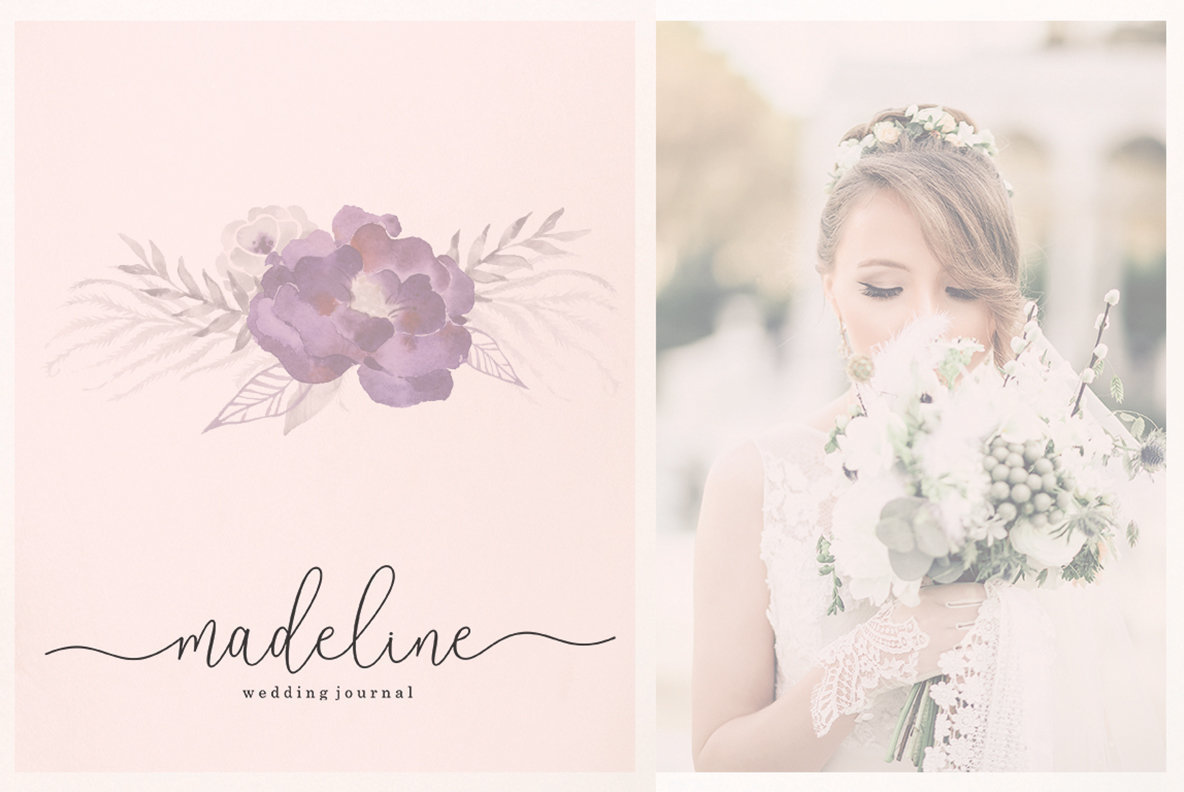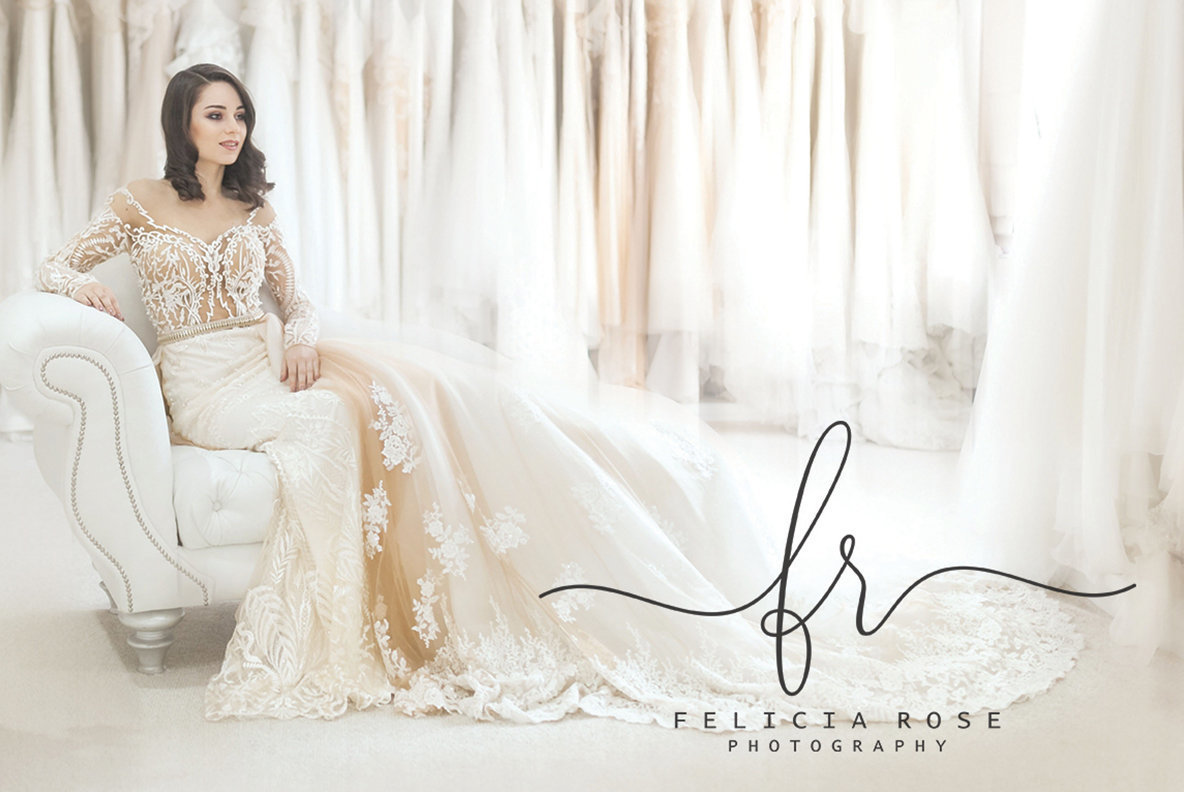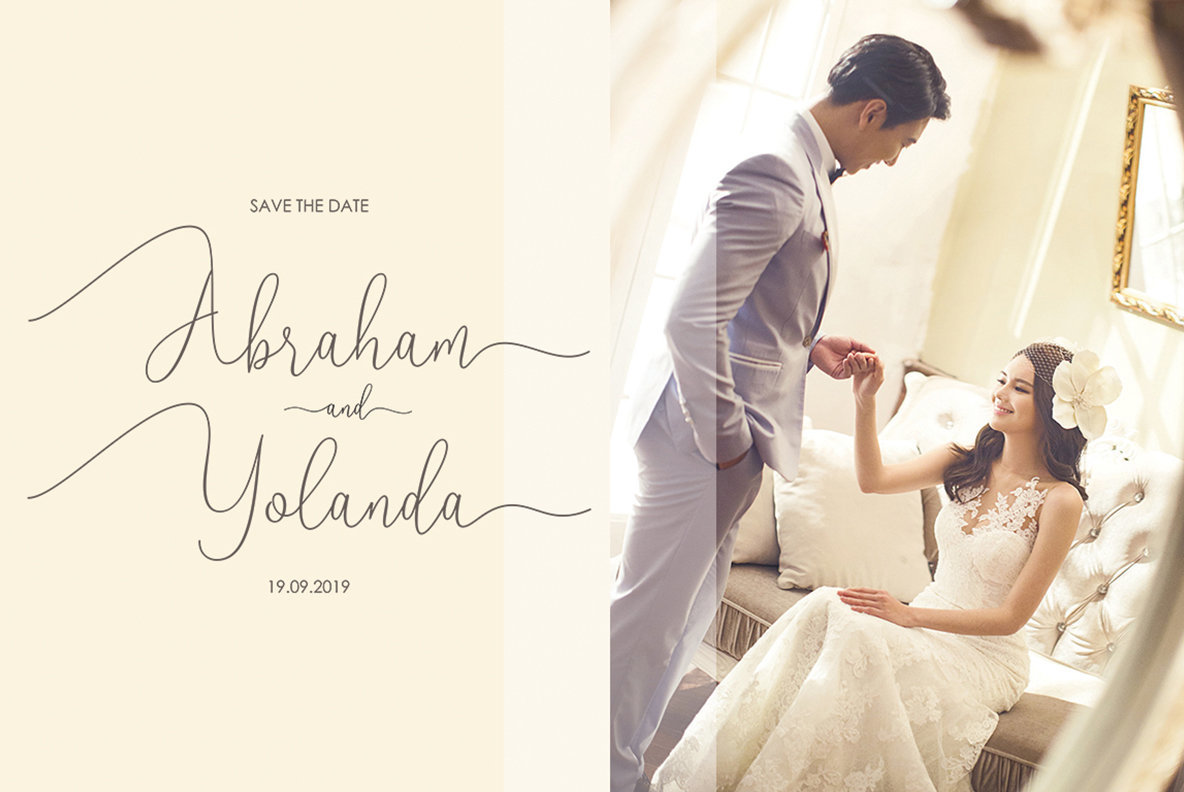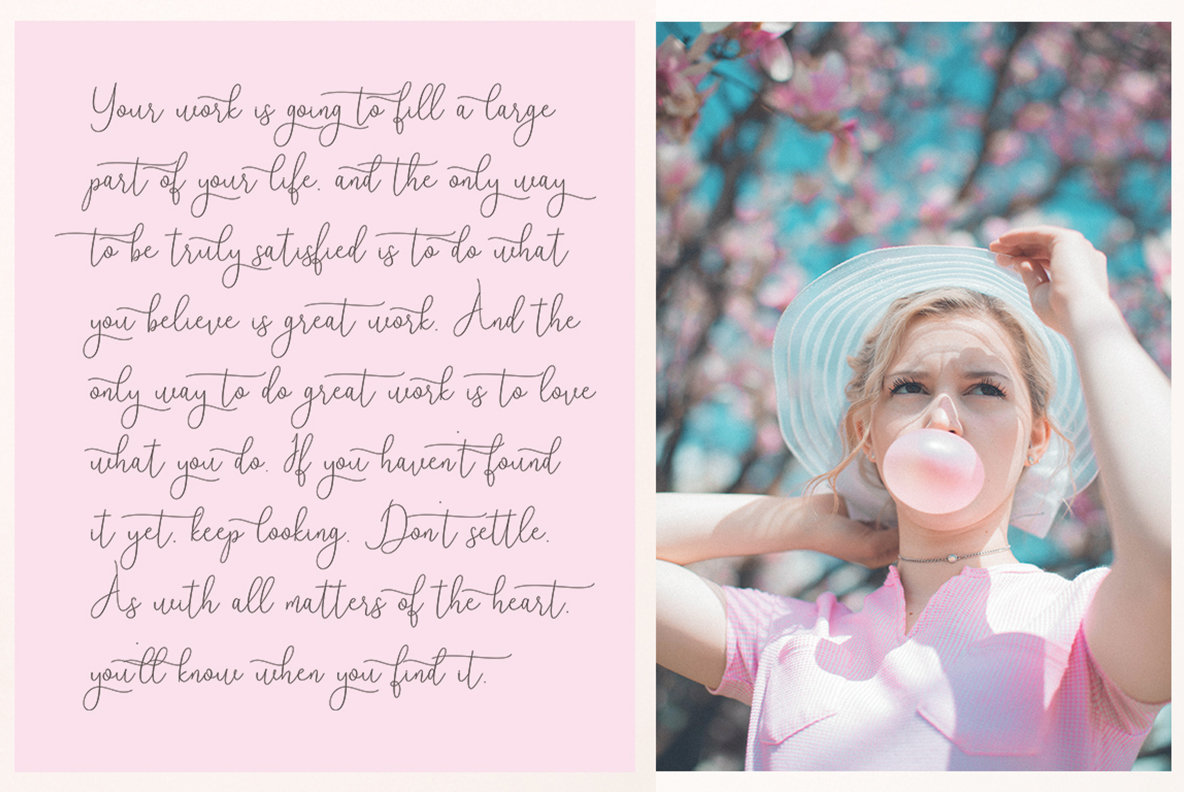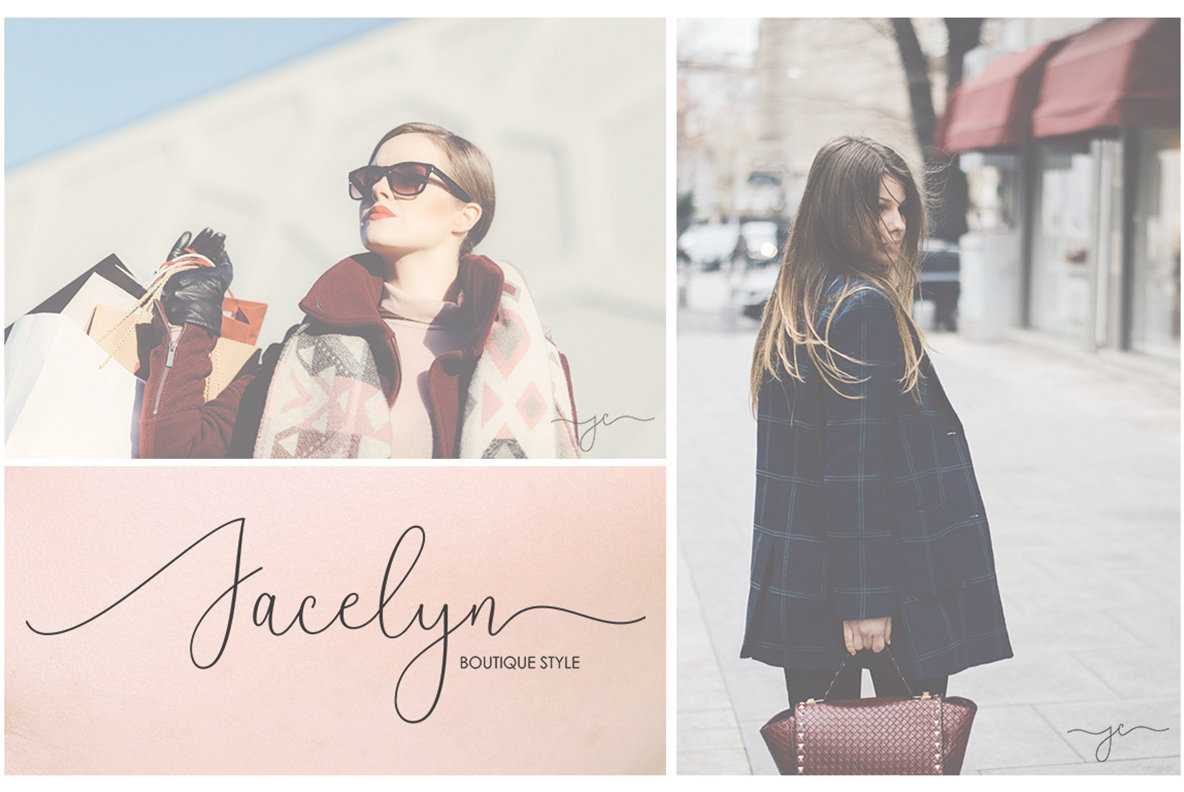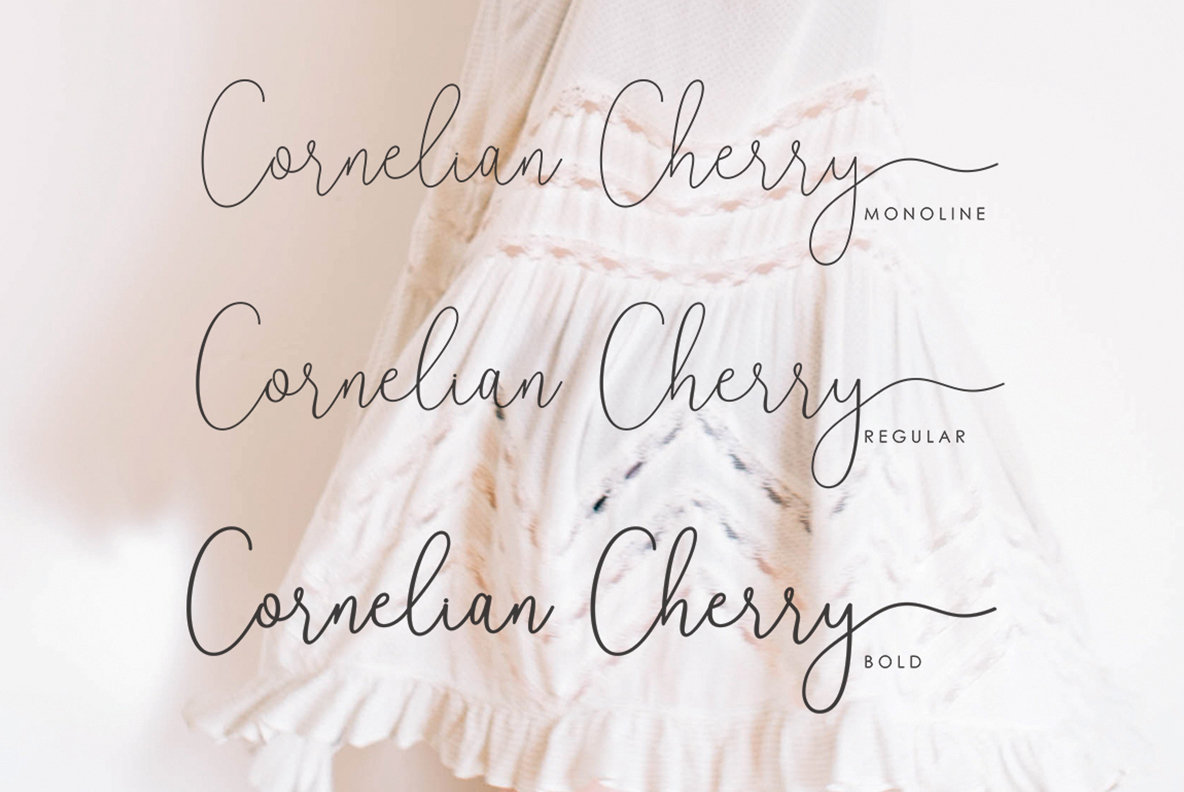
Reading Font
The Reading Signature font by Megatype embodies a sophisticated signature style, seamlessly blending elegance with versatility. Featuring Monoline, Regular, and Bold variations, this typeface is both casual and refined, making it an ideal choice for a wide range of applications. Features: Reading Signature excels in projects from logos and product packaging to wedding invitations and posters. Its addition of swashes brings a unique flair to headlines and branding, while its support of alternate characters offers flexibility in design.Reading Signature: Elegant Typeface with Styles